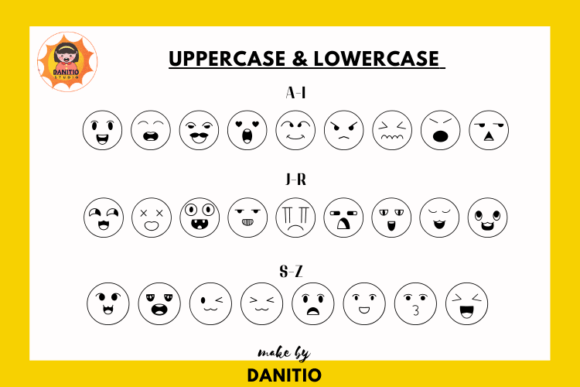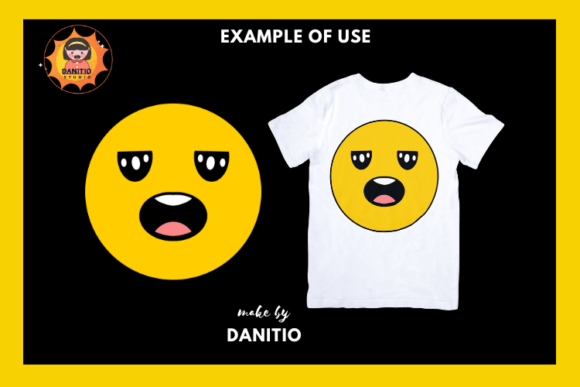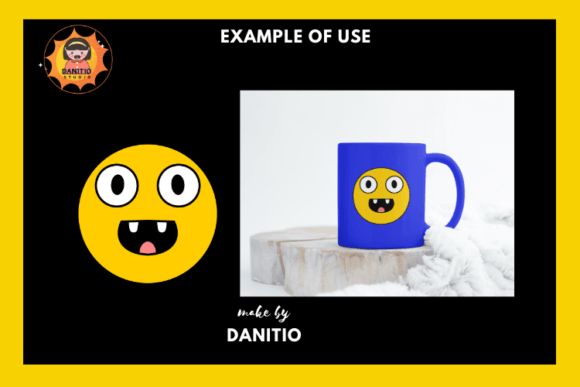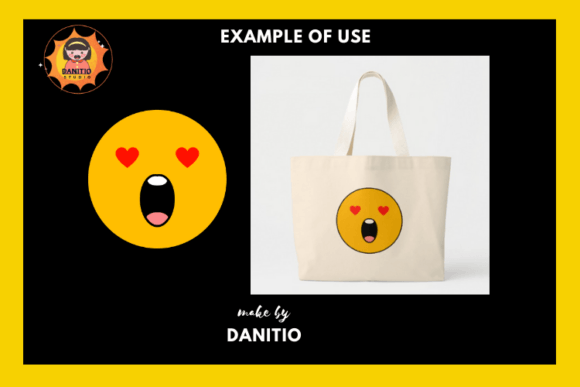
The Emotion Font: A Fun and Versatile Dingbats Font for Design Enthusiasts
Are you tired of using the same old fonts for your designs? Look no further! The Emotion font is a unique and expressive Dingbats font that features a wide range of emotional faces, perfect for adding a touch of personality to your creations. In this article, we’ll explore the world of Emotion font and discover how it can elevate your designs to the next level.
What is the Emotion Font?
The Emotion font is a Dingbats font that consists of various faces, each representing a different emotion. From happy and sad to surprised and angry, this font has got you covered. Its distinct style makes it ideal for design essentials, allowing you to add a dash of whimsy and fun to your projects.
Uses of the Emotion Font
The Emotion font is incredibly versatile and can be used in a variety of design projects. Here are some ideas to get you started:
- Digital Artifacts: Add a touch of personality to your digital creations, such as social media graphics, blog posts, and email newsletters.
- Presentations: Make your presentations more engaging and interactive with the Emotion font.
- Greeting Cards: Create unique and heartfelt greeting cards for special occasions.
- T-Shirts and Apparel: Design eye-catching t-shirts, hoodies, and other apparel with the Emotion font.
- Mugs and Drinkware: Add a splash of personality to your mug and drinkware designs.
- Tote Bags and Accessories: Create stylish and functional tote bags, stickers, and other accessories with the Emotion font.
Benefits of Using the Emotion Font
So, why choose the Emotion font for your designs? Here are some benefits:
- Unique and Expressive: The Emotion font allows you to convey emotions and personality in your designs.
- Versatile: Use the Emotion font in a variety of design projects, from digital to print.
- Fun and Engaging: Add a touch of whimsy and fun to your designs with the Emotion font.
Tips for Using the Emotion Font
Here are some tips for getting the most out of the Emotion font:
- Experiment with Different Sizes and Colors: Play around with different sizes and colors to create visual interest.
- Mix and Match: Combine the Emotion font with other fonts to create a unique look.
- Use in Combination with Images: Pair the Emotion font with images to create engaging and interactive designs.
The Emotion font is a fun and versatile Dingbats font that’s perfect for designers and crafters looking to add a touch of personality to their creations. With its unique and expressive style, it’s ideal for a wide range of design projects, from digital artifacts to print materials. So why not give it a try and see how the Emotion font can elevate your designs to the next level?
Whether you’re a seasoned designer or a crafty DIY enthusiast, the Emotion font is sure to inspire and delight. So go ahead, get creative, and show the world how you feel with the Emotion font!